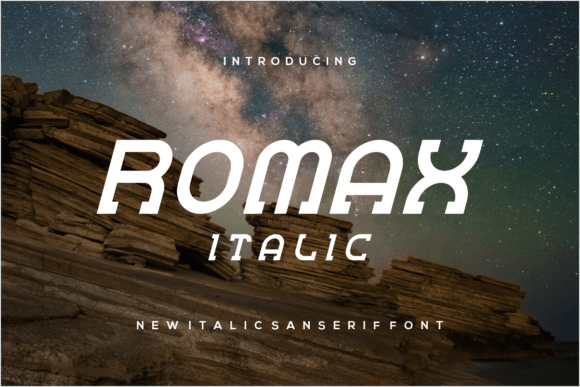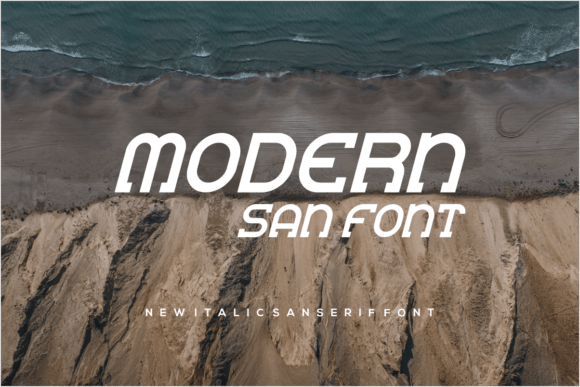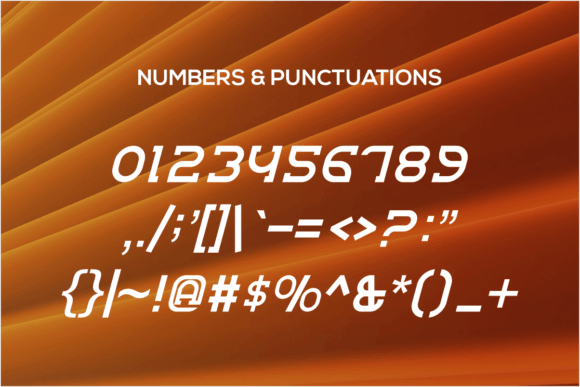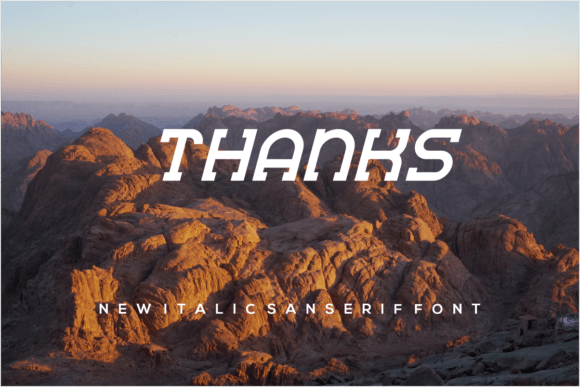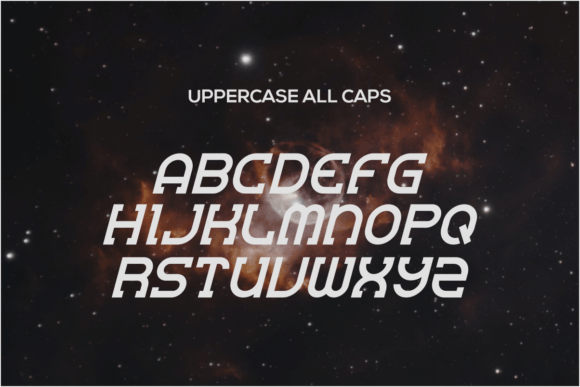
Romax Italic Font
Romax Italic: A Sweet and Elegant Slab Serif Typeface
Romax Italic is a sweet and elegant slab serif typeface. It beautifully combines a classy calligraphic influence with a contemporary and fresh feel. This charming font is designed to make you fall in love with it and elevate your projects to the highest level!
Key Features of Romax Italic
• Sweet Design: Offers a charming and appealing look for various applications.
• Elegant Style: Brings a touch of sophistication to designs.
• Slab Serif Structure: Features distinctive serifs typical of slab serif fonts[3].
• Calligraphic Influence: Retains a classy handwritten feel despite being a slab serif.
• Contemporary Feel: Balances traditional elements with a fresh, modern appearance.
Best Uses for Romax Italic
Romax Italic’s unique characteristics make it particularly well-suited for:
When using Romax Italic in your designs, keep these tips in mind:
• Use for headlines or short text to showcase its sweet and elegant style.
• Try different sizes to highlight the font’s unique blend of calligraphic influence and modern design.
• Pair with upright slab serif or sans-serif fonts for body text to create an interesting contrast[2].
• Experiment with colors to enhance its contemporary appeal.
To sum up, Romax Italic is an excellent choice for designers seeking a sweet and elegant slab serif typeface with a touch of calligraphic charm. Its ability to blend classic influences with a fresh, contemporary feel makes it stand out in the world of typography. Whether you’re working on branding materials, creating editorial layouts, or developing content for lifestyle brands, Romax Italic offers the perfect mix of sophistication and modernity.
Moreover, Romax Italic’s unique design allows it to shine in various contexts where a blend of elegance and freshness is desired. From packaging designs to social media graphics, this font can elevate your projects with its distinctive style. Its sweet yet refined appearance works particularly well in designs that aim to convey a sense of contemporary elegance.
In conclusion, Romax Italic truly captures the essence of modern elegance in slab serif typography while retaining a classy calligraphic influence. Its versatility across different applications shows how it can fit various creative needs. Therefore, for those wanting to add a touch of sweet sophistication to their work, Romax Italic can enhance themed creations with its unique style. Ultimately, it’s an ideal choice for designers aiming to make a fresh, elegant impact across a wide range of creative projects.